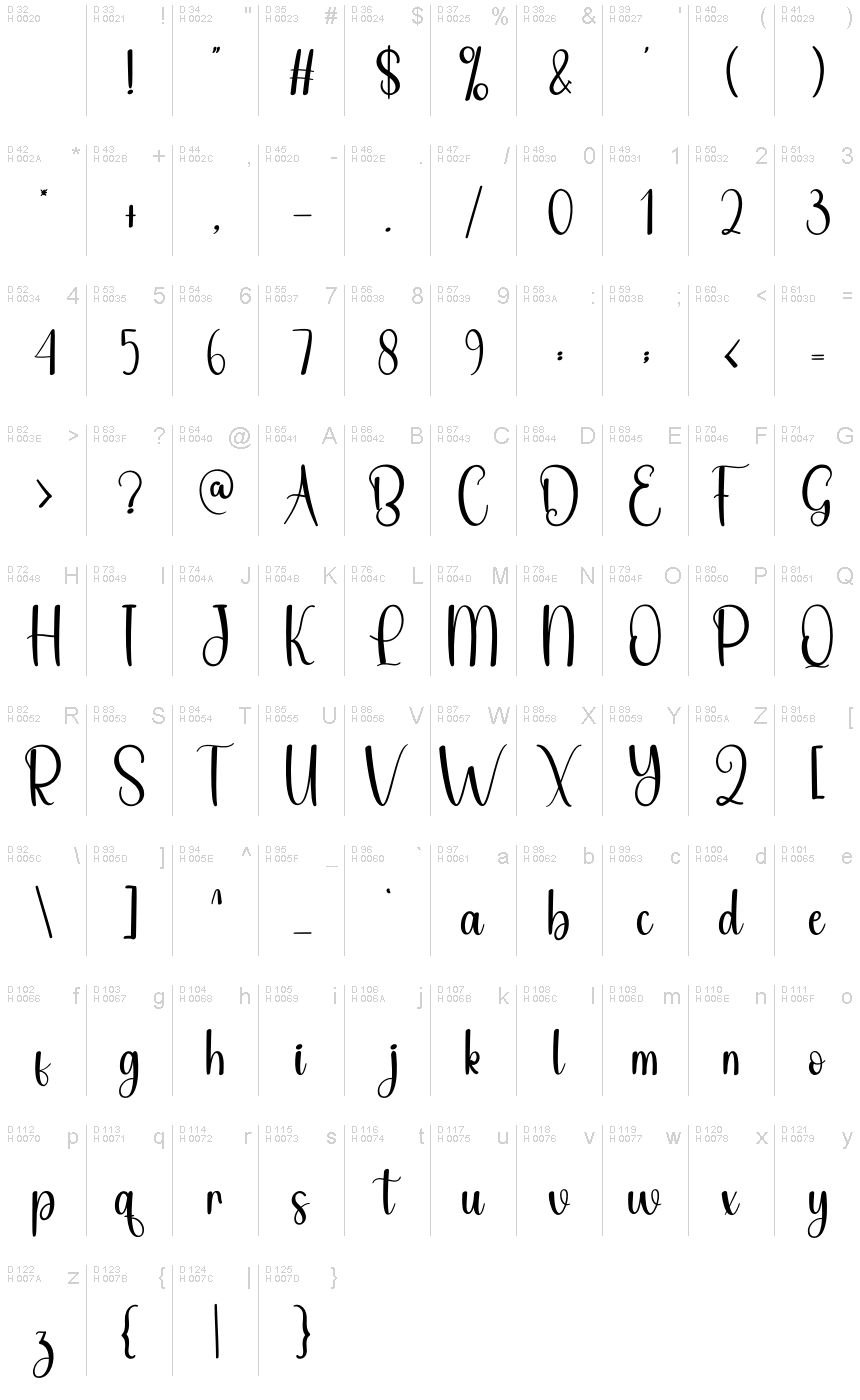
Shunshine
Shunshine is a captivating handwritten font designed by Andi Moz. Its flowing, organic lines and playful flourishes exude a sense of warmth and personality, making it an ideal choice for projects that seek to convey a personal, hand-crafted aesthetic.
The font's striking cursive strokes and unique character shapes lend a touch of whimsy and charm, effortlessly elevating designs in areas such as branding, packaging, and editorial layouts.
Shunshine's versatility allows it to seamlessly blend with a wide range of design styles, from rustic and vintage-inspired to modern and minimalist.